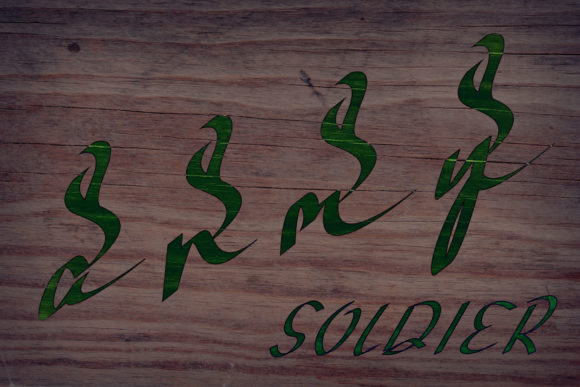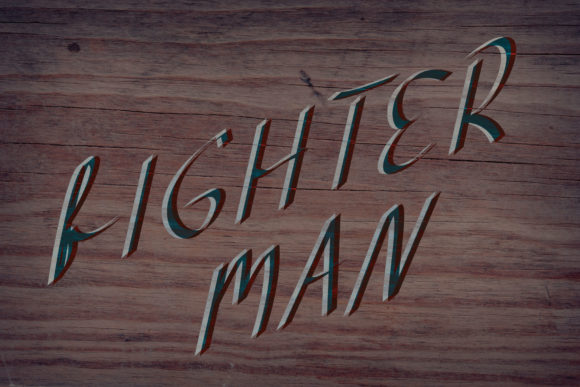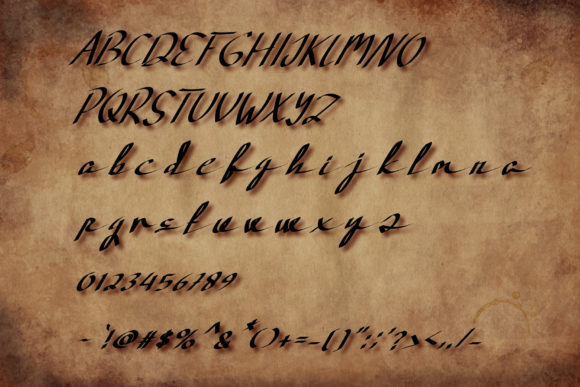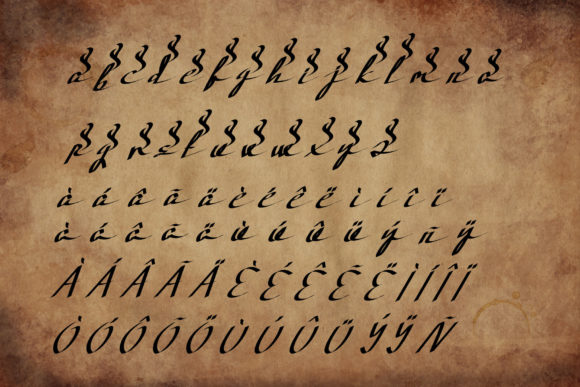
War Warrior Font
Unleash your creativity and embark on a design journey with War Warrior, an intriguing and one-of-a-kind handwritten font. Its captivating and stylish appearance will instantly captivate your audience, making it the perfect choice for a wide range of design projects.
With War Warrior, you have the power to create stunning logos that leave a lasting impression. Its unique letterforms and artistic flair add a touch of individuality and elegance to your brand identity. Whether you’re designing for a modern and edgy company or a vintage-inspired brand, War Warrior adapts effortlessly to your creative vision.
Quotes and inspirational messages come to life with War Warrior. Its timeless appeal and graceful curves bring a sense of beauty and sophistication to any typographic composition. Craft heartfelt invitations that make a statement, design memorable business cards that leave a lasting impression, or create dynamic and engaging presentations that command attention.
Thanks to its PUA encoding, accessing the vast array of glyphs and swashes that War Warrior offers is a breeze. Stand out from the crowd and customize your designs with ease, adding ornamental swashes, decorative ligatures, and unique characters to elevate your creations to new heights.
War Warrior is more than just a font. It’s a tool that empowers your creativity and allows you to infuse your designs with personality and charm. Its versatility knows no bounds, making it suitable for a wide variety of projects across different industries and design styles.
Whether you’re a seasoned designer or just starting your creative journey, War Warrior will inspire you to create gorgeous and timeless designs that leave a lasting impression. Embrace its stylish look, unleash your imagination, and let War Warrior be your trusted companion in the realm of design.